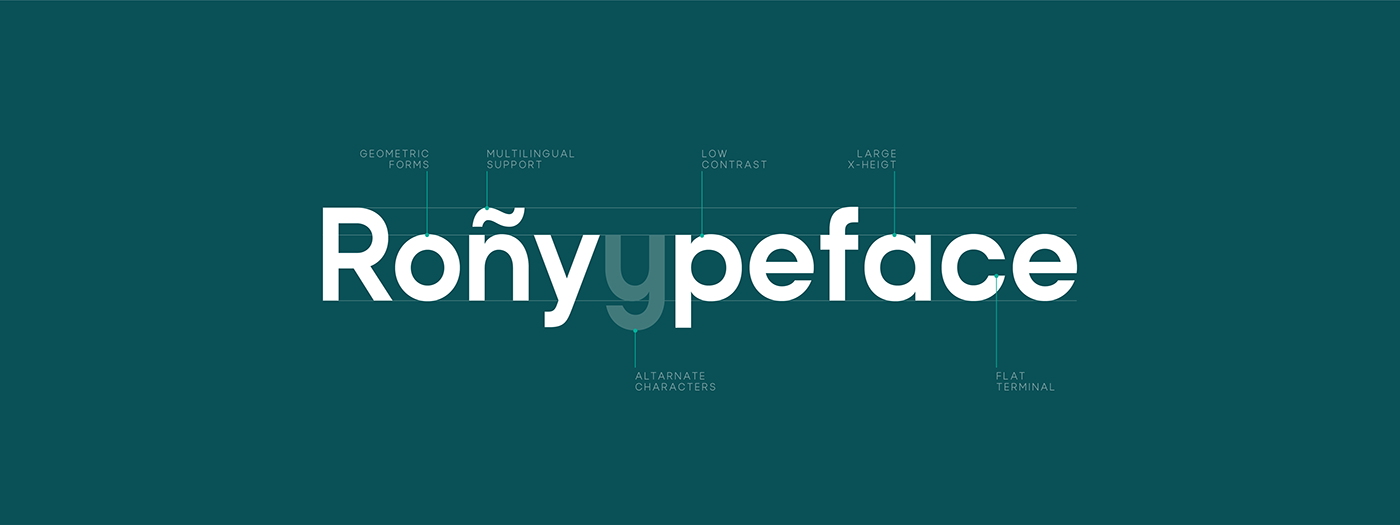
Rota is a complete free font family created by Serdar Ozturk. This free geometric family has the versatility to be used for the headings or body copy of whatever creative project you’re working on next. With 20 fonts, you’re bound to find one that will fit your needs.